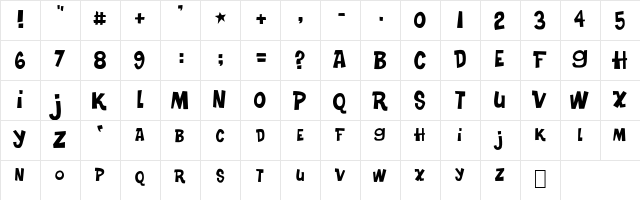
Turkey Sandwich Regular Free Font
Turkey Sandwich Regular
Design Context for Turkey Sandwich
Turkey Sandwich is a composed and adaptable typeface that performs quietly and consistently across a wide range of design contexts.
Pro Tip: Use Turkey Sandwich in both headline and body roles to test its range before committing to a single application.